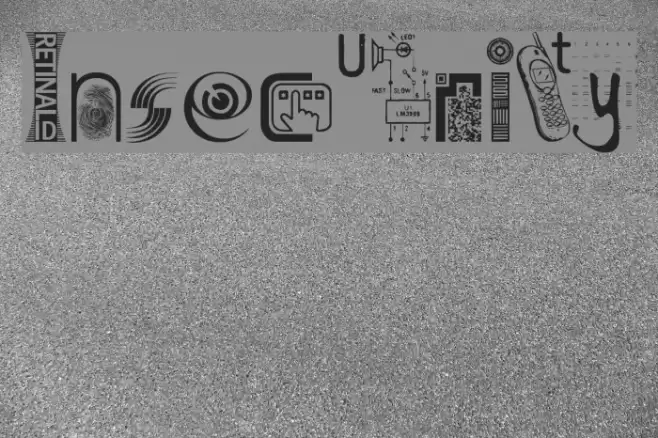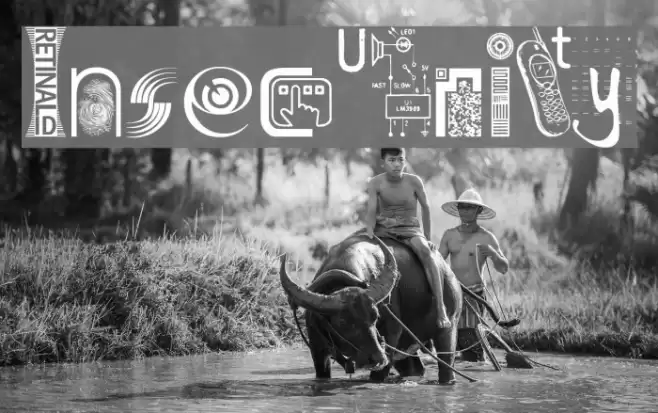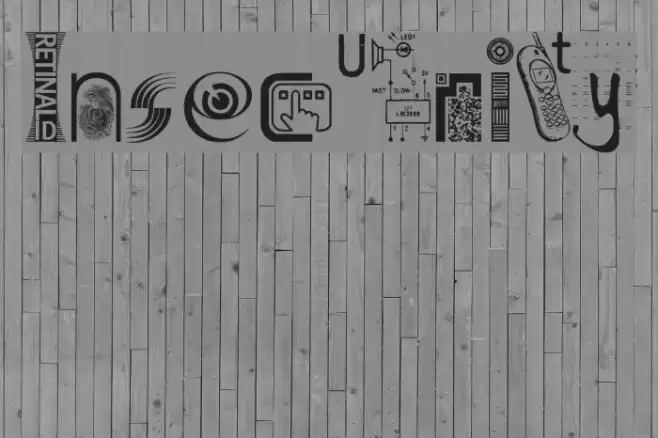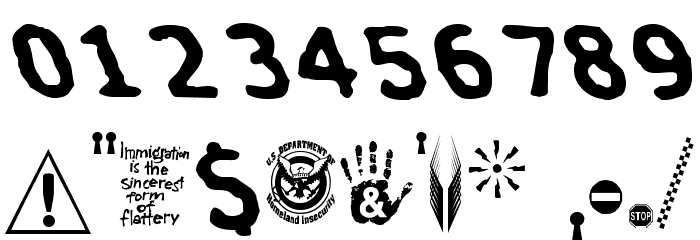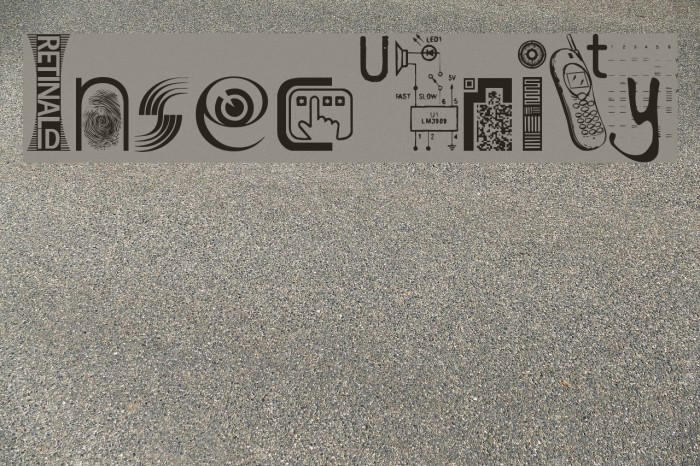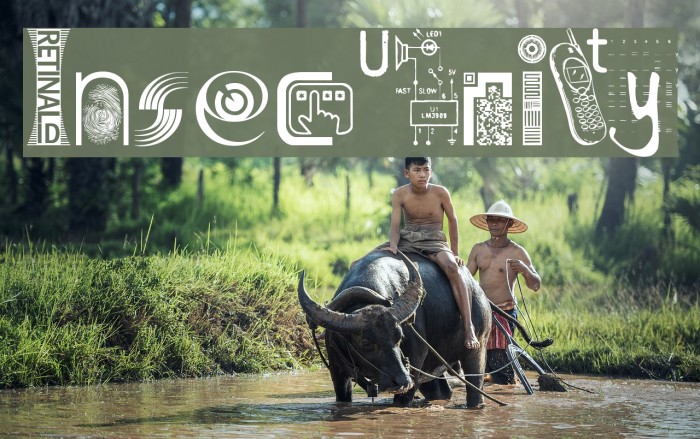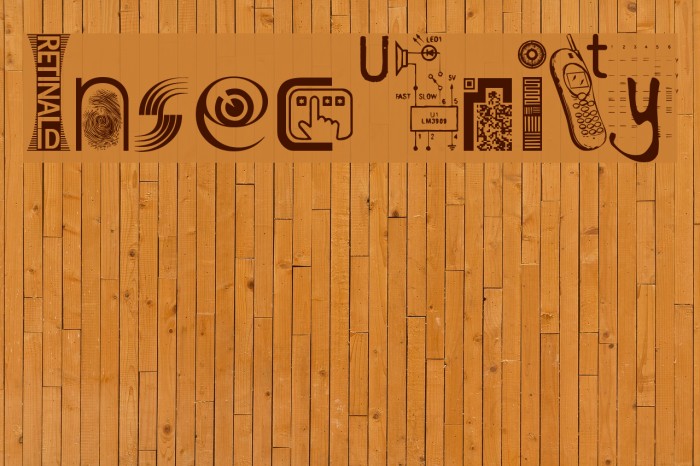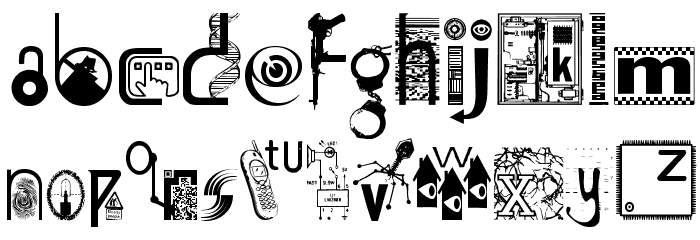
Insecurity Font
Insecurity Description
This font is a highly creative and eclectic collection of characters, each designed with unique and varied elements that convey a sense of chaos and unpredictability. The uppercase letters incorporate various imagery and symbols, such as guns, security cameras, and abstract patterns, making each character distinct and visually striking. The lowercase letters continue this theme with a mix of abstract designs and symbolic elements. The numbers are bold and irregular, adding to the overall unconventional style. Special characters include a range of symbols that further emphasize the theme of insecurity and unpredictability. This font is not uniform, with each character having its own distinct style, contributing to a sense of disorder and artistic expression.
A chaotic and eclectic font with unique, symbol-rich characters from Uncategorized fonts.
- Proposed Projects: Ideal for artistic projects, posters, album covers, or any design work that aims to convey themes of chaos, insecurity, or rebellion.
- Character Spacing: Varied
- Use Case: Artistic designs, posters, album covers.